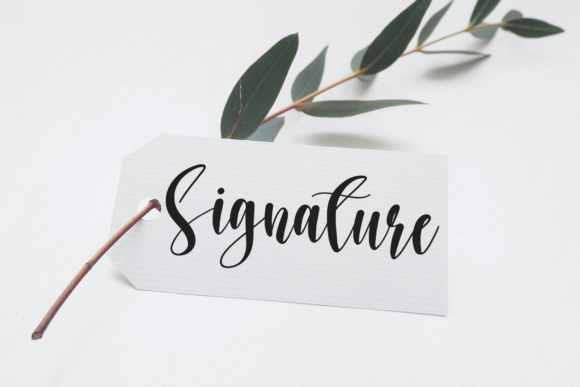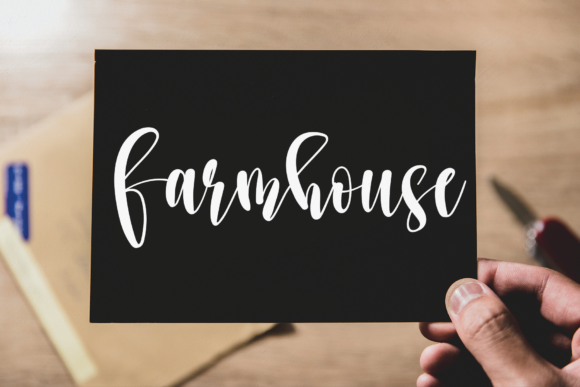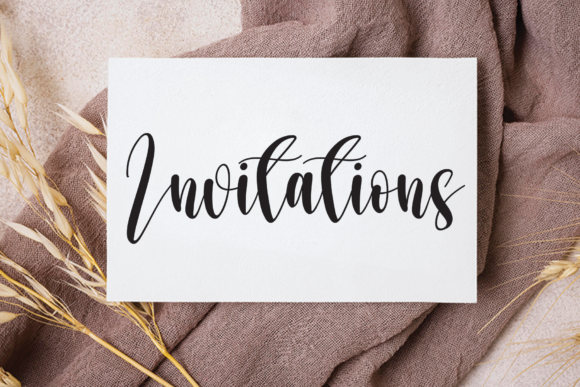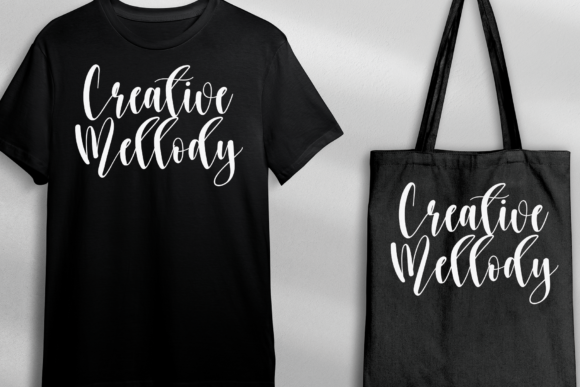
Baby Bee Font: The Magical Script Font for Elegant Creations
Are you a designer, crafter, or DIY enthusiast looking for a font that can elevate your creative projects to the next level? Look no further than the Baby Bee Font, a magical script font that combines elegance and playfulness. In this article, we’ll dive into the world of Baby Bee Font and explore its features, uses, and benefits for designers and crafters.
What is Baby Bee Font?
Baby Bee Font is a carefully crafted script font that exudes elegance and sophistication. With its flowing curves and delicate lines, this font is perfect for adding a touch of whimsy and charm to your creative projects. Whether you’re working on a DIY project, designing social media graphics for Instagram, or creating calligraphy scripts, Baby Bee Font is the perfect choice.
Key Features of Baby Bee Font
- Elegant and Playful Design: Baby Bee Font boasts a unique blend of elegance and playfulness, making it perfect for a wide range of creative projects.
- Magical Script Style: This font features a magical script style that is sure to captivate your audience and add a touch of wonder to your designs.
- High-Quality Design: Baby Bee Font is carefully crafted with attention to detail, ensuring a high-quality design that will make your projects stand out.
- Versatile Use: This font is perfect for a variety of creative projects, including DIY projects, social media graphics, calligraphy scripts, and more.
Uses of Baby Bee Font
Baby Bee Font is a versatile font that can be used in a variety of creative projects. Here are some ideas to get you started:
- Instagram Graphics: Use Baby Bee Font to create stunning Instagram graphics that will make your feed stand out.
- DIY Projects: Add a touch of elegance to your DIY projects, such as handmade cards, gift tags, and scrapbooking pages.
- Calligraphy Scripts: Use Baby Bee Font to create beautiful calligraphy scripts for special occasions, such as weddings, birthdays, and holidays.
- Branding and Packaging: Use Baby Bee Font to create a unique and memorable brand identity for your business, including packaging and labeling.
Benefits of Using Baby Bee Font
So why choose Baby Bee Font for your creative projects? Here are just a few benefits of using this magical script font:
- Adds Elegance and Sophistication: Baby Bee Font adds a touch of elegance and sophistication to your creative projects, making them stand out from the crowd.
- Increases Creativity: With its unique and playful design, Baby Bee Font can inspire creativity and help you think outside the box.
- High-Quality Design: Baby Bee Font features a high-quality design that will make your projects look professional and polished.
Tips for Using Baby Bee Font
Here are a few tips for using Baby Bee Font in your creative projects:
- Experiment with Different Sizes and Colors: Try out different sizes and colors to see what works best for your project.
- Pair with Other Fonts: Pair Baby Bee Font with other fonts to create a unique and interesting design.
- Use for Headings and Titles: Use Baby Bee Font for headings and titles to add a touch of elegance and sophistication.
- Practice, Practice!: The more you practice using Baby Bee Font, the more comfortable you’ll become with its unique design and features.
| Font Name | Baby Bee Font |
In conclusion, Baby Bee Font is a magical script font that is perfect for designers and crafters looking to add a touch of elegance and sophistication to their creative projects. With its unique and playful design, high-quality features, and versatile use, Baby Bee Font is a must-have for anyone looking to take their designs to the next level. So why wait? Download Baby Bee Font today and start creating your own magical designs!